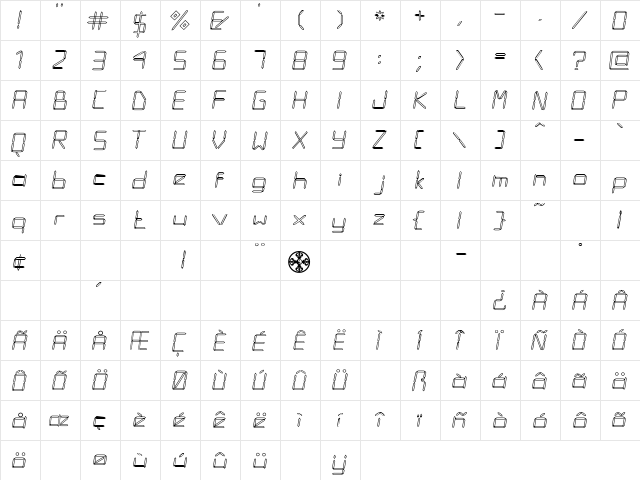
Diodes Light
Design Context for Diodes Typeface
Diodes offers clean, dependable letterforms without strong stylistic allegiance, making it a practical choice for designers who need flexibility. Its slender proportions lend an understated elegance to any composition.